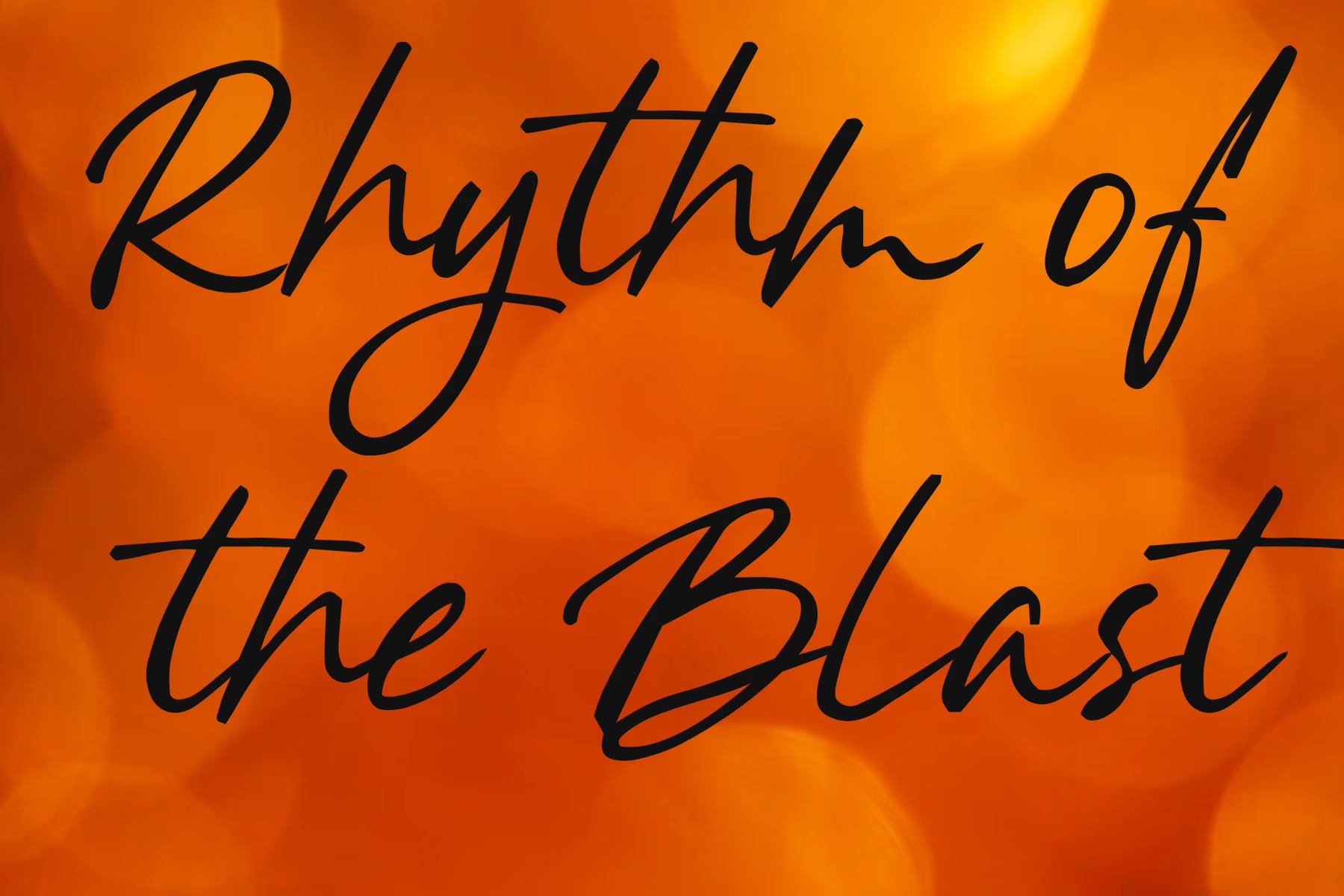
Rhythm Of The Blast Font
Rhythm Of The Blast Font is a premium-quality font developed to enhance your work with a polished, modern, and visually elevated look.Rhythm of the Blast is a bold and energetic display font with a raw, explosive character. Its powerful shapes and dynamic style make it ideal for posters, music artwork, gaming visuals, logos, and eye-catching headlines. The font is available for free personal use, adding a strong and rebellious edge to creative designs.